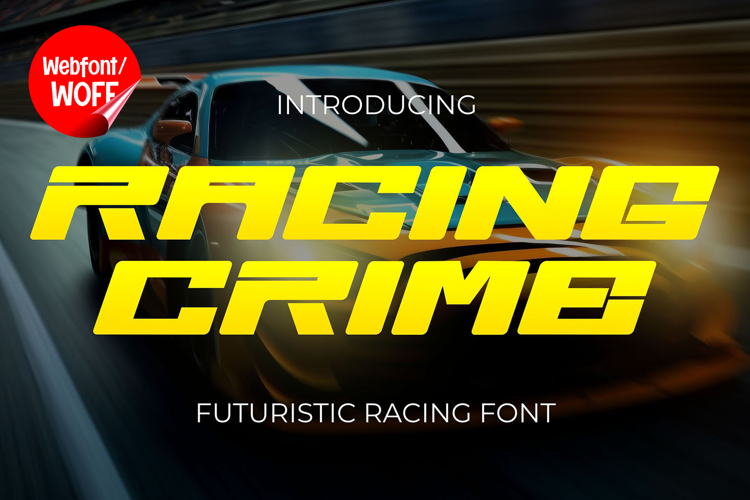
Racing Crime | Modern Futuristic Webfont for Dynamic Website
Racing Crime is a modern futuristic webfont designed to deliver speed, precision, and a cutting-edge visual style for contemporary website design. Inspired by high-performance themes such as racing, technology, and digital innovation, this font features sleek lines and sharp angles that create a sense of motion and energy. It is an excellent choice for projects that require a bold, modern, and forward-thinking typographic identity.
Racing Crime includes a complete set of uppercase characters designed with a futuristic structure. The letterforms are crafted with dynamic angles and streamlined shapes, giving them a fast and aggressive visual tone. These characteristics make the font ideal for headlines, banners, hero sections, and featured content where strong impact and visual emphasis are needed.
In addition to letters, the font includes numbers and punctuation, allowing flexible use across various parts of a website. It works well for product showcases, automotive content, gaming interfaces, promotional campaigns, and navigation elements. Each character maintains a consistent futuristic style, ensuring a cohesive and unified design throughout the layout.
With multilingual support, Racing Crime includes a wide range of accented characters, making it suitable for international websites and global audiences. This allows content to be displayed clearly across different languages while maintaining the same modern and futuristic aesthetic.
The modern futuristic style of Racing Crime makes it especially suitable for automotive websites, tech startups, gaming platforms, esports branding, and digital portfolios. Its dynamic and high-energy design adds a sense of motion and innovation, helping websites stand out in competitive digital environments. The clean yet aggressive look also enhances branding that focuses on speed and performance.
Despite its stylized and angular appearance, Racing Crime is designed with readability in mind. The spacing and proportions are carefully balanced to ensure clarity, particularly in display sizes. This makes it effective for impactful headings and short text elements where both style and usability are important.
Racing Crime is a webfont that combines futuristic aesthetics with modern digital performance. Its sharp forms, dynamic structure, and high-speed visual character create a distinctive typographic presence that enhances website design. For projects that require a sleek, powerful, and modern look, Racing Crime delivers a strong and engaging solution.